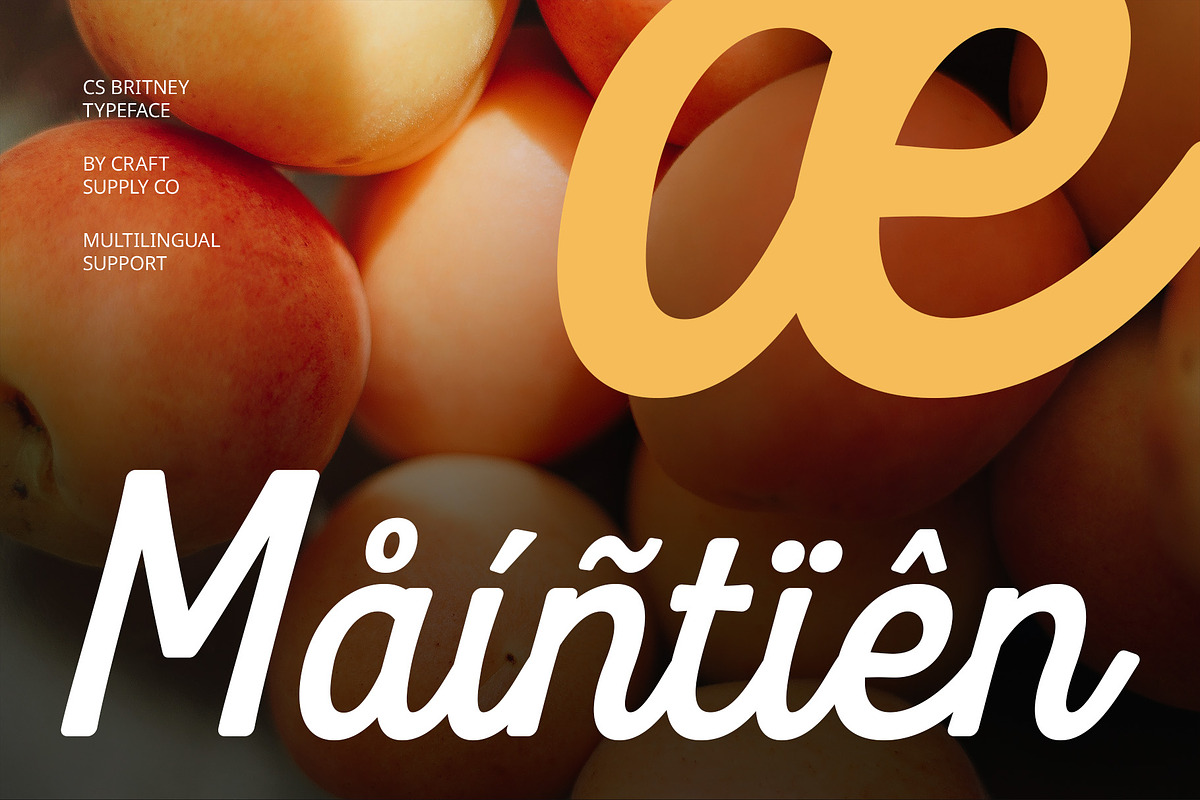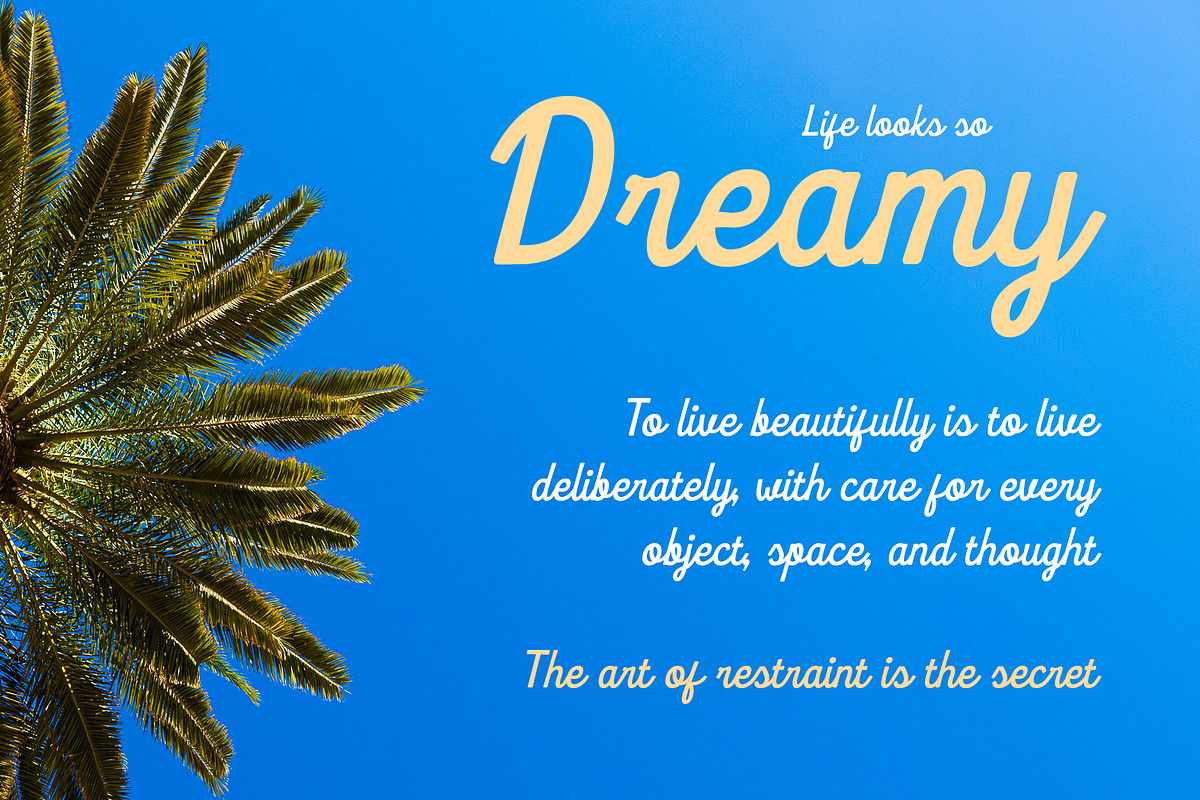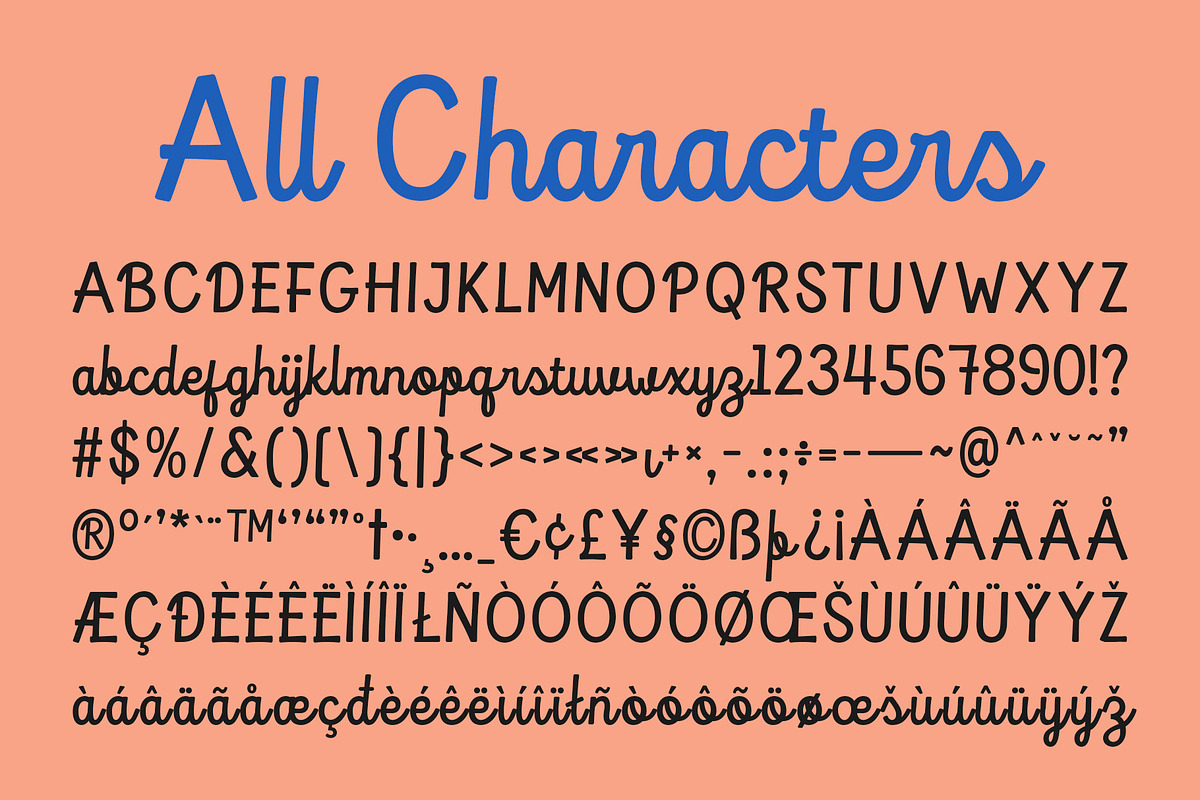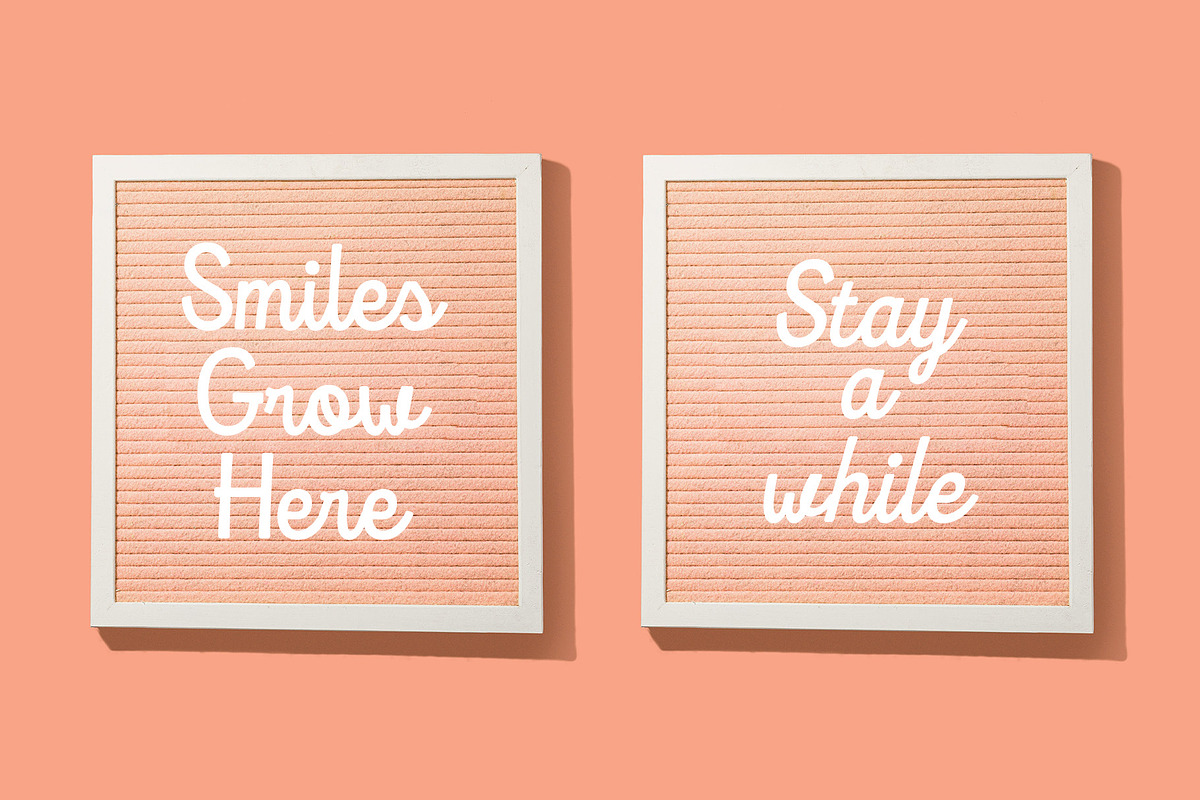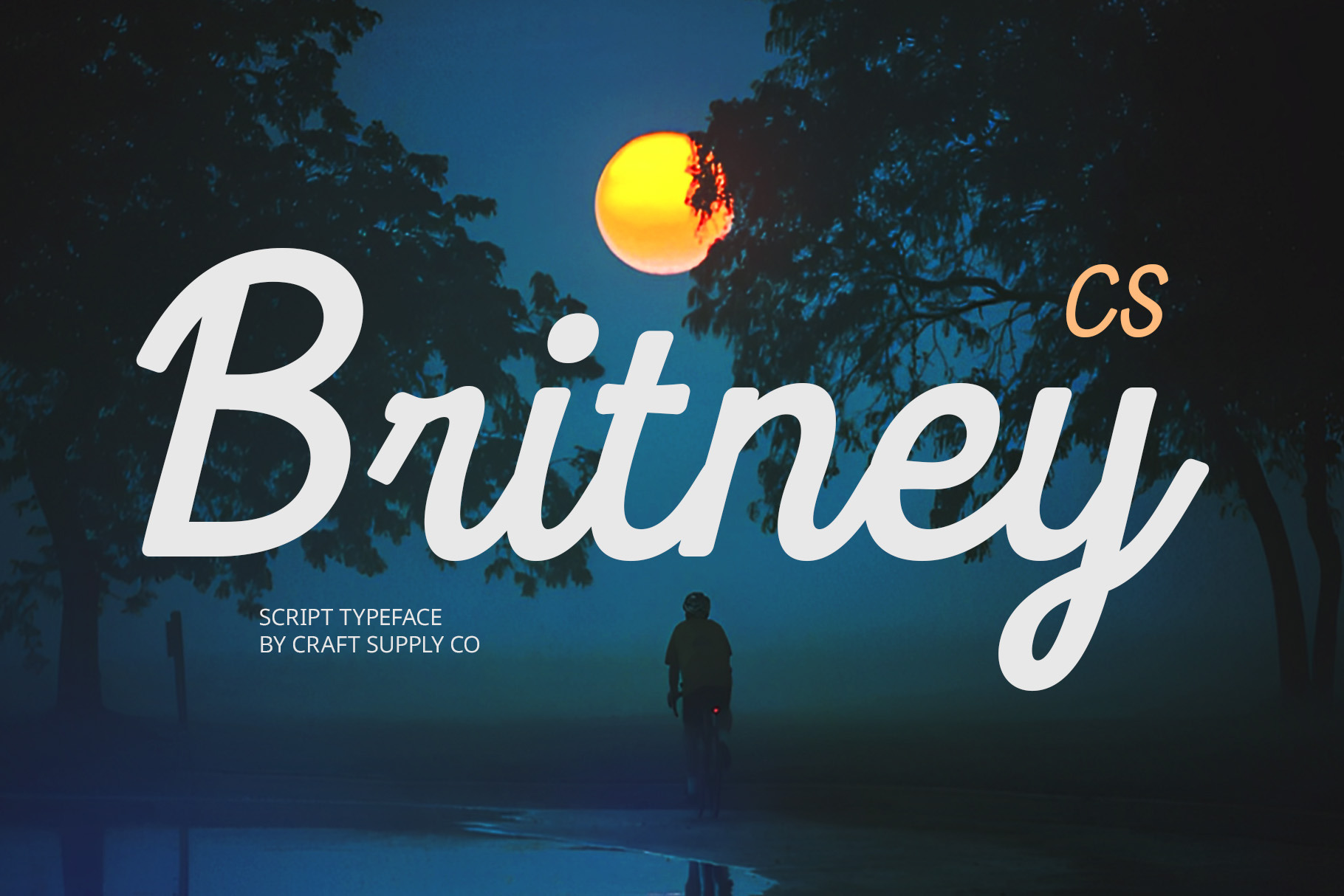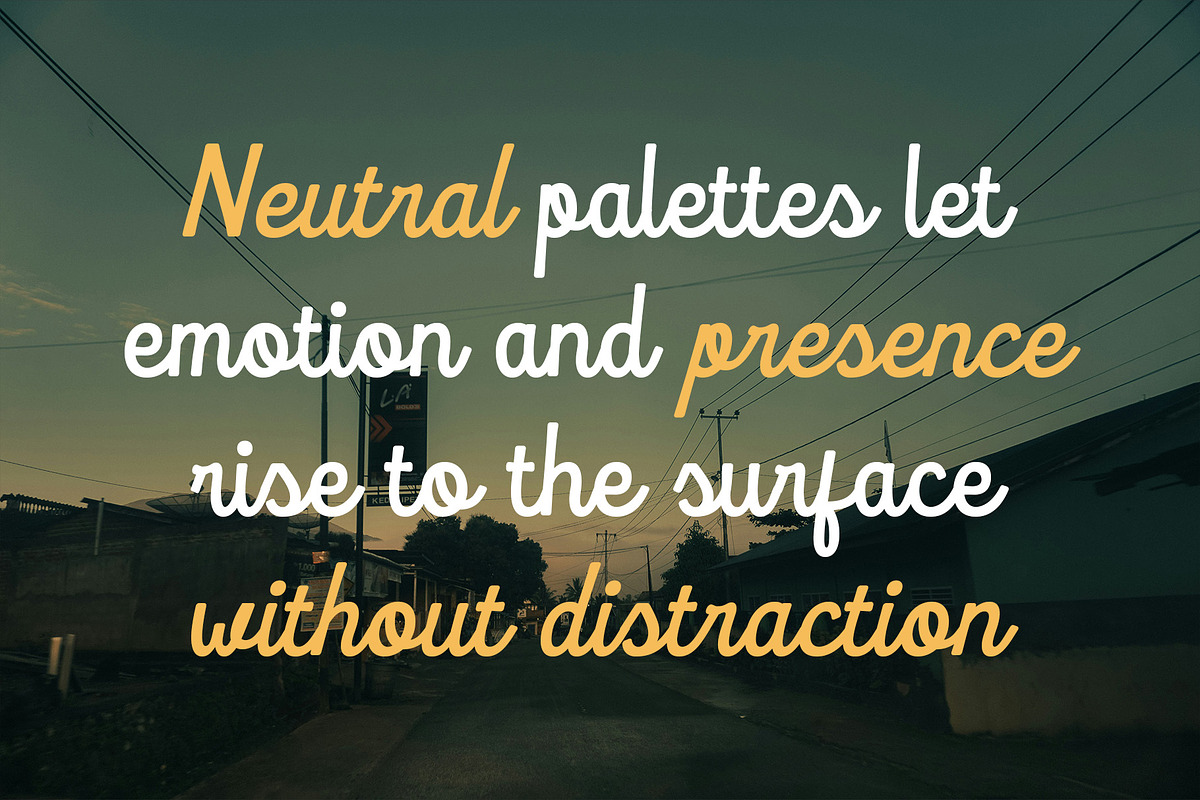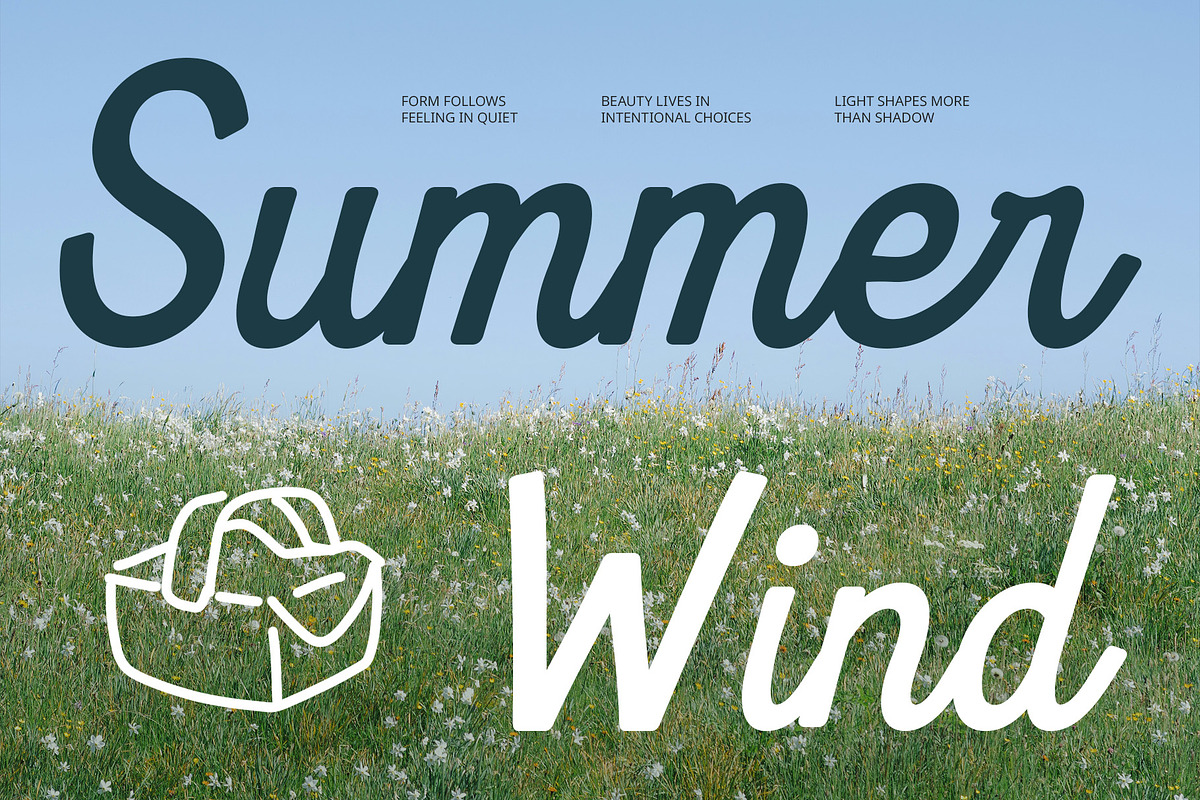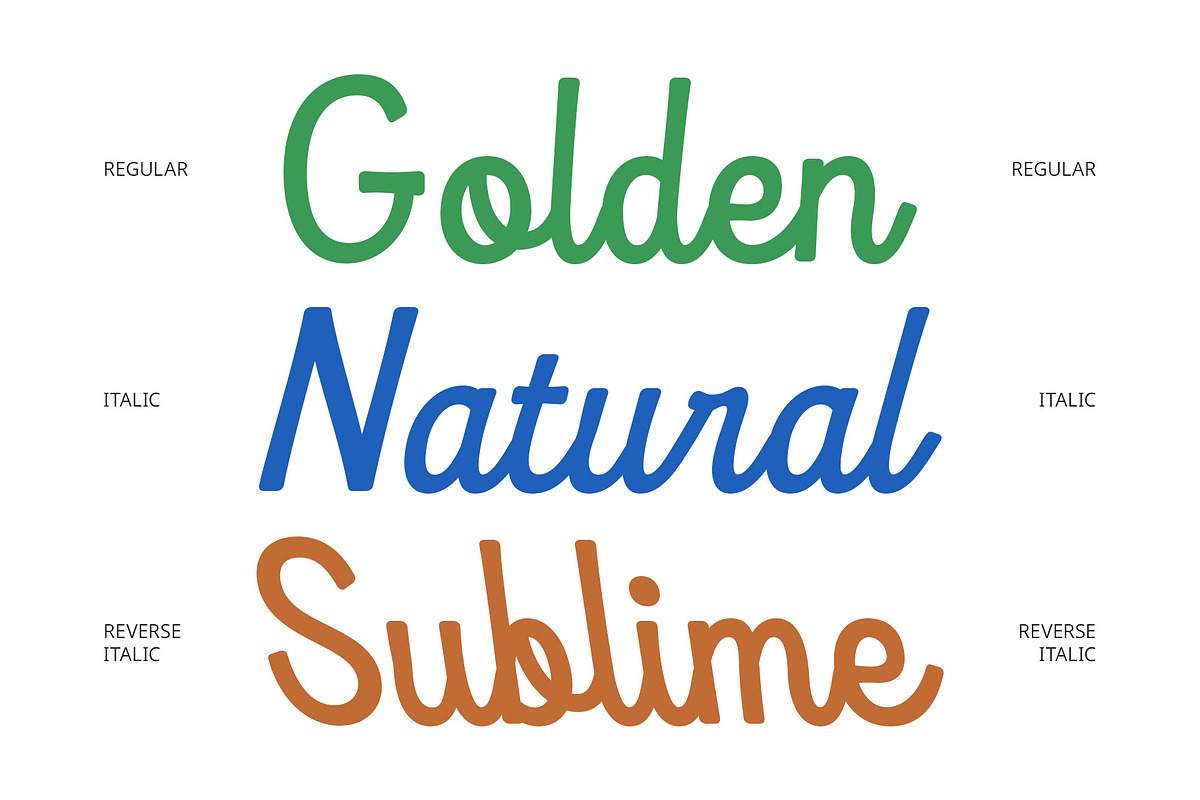
CS Britney – Script Font
CS Britney Font – Effortless Elegance in Every Stroke
Graceful Script with Feminine Charm CS Britney is a modern script font designed to capture the softness and elegance of handwritten lettering. Its flowing strokes and slim, refined curves bring a feminine and luxurious touch to every word, making it perfect for beauty-focused and emotionally driven designs.
Delicate Yet Confident Letterforms With its balanced rhythm and smooth connections, CS Britney exudes a modern beauty that feels both gentle and stylish. Each character is crafted to radiate subtle sophistication, making it ideal for wedding invitations, boutique branding, or personal projects that require an intimate and graceful tone.
Warmth and Personality in Every Line Beyond its visual charm, CS Britney carries a warm, personal feel that resonates with authenticity. Its handwritten nature makes designs feel approachable and heartfelt, while maintaining the polish and finesse needed for upscale presentation.
Perfect for Elegant and Romantic Design Whether used in luxury branding, social media content, or elegant stationery, CS Britney brings a sense of romantic sophistication and creative flair. From fashion lookbooks and beauty campaigns to heartfelt stationery and elegant social media visuals, CS Britney adapts gracefully to a wide range of creative needs. Its luxurious flow, charming personality, and timeless aesthetic make it the perfect script for designers looking to combine softness, style, and emotional depth in a modern, eye-catching way.